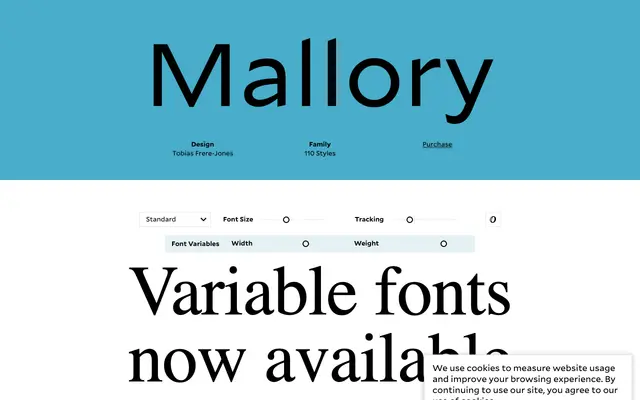
Mallory
A 110-style grotesque by Tobias Frere-Jones spanning five widths and two optical subfamilies, including a MicroPlus cut built for small-size legibility.
Mallory is an expansive grotesque sans designed by Tobias Frere-Jones, structured across Standard and MicroPlus subfamilies with widths running from regular through Compact, Narrow, Condensed and Extra Condensed. Eight weights from Thin to Ultra are paired with italics throughout, and variable fonts are available across both subfamilies. The MicroPlus cuts are specifically engineered for demanding small-text conditions, making the family as practical at caption size as it is at display scale.
Mallory sits in the grotesque sans tradition, with a large family spanning multiple widths and optical sizes including a MicroPlus cut optimised for small text, characteristic of utilitarian grotesque design refined for demanding environments.